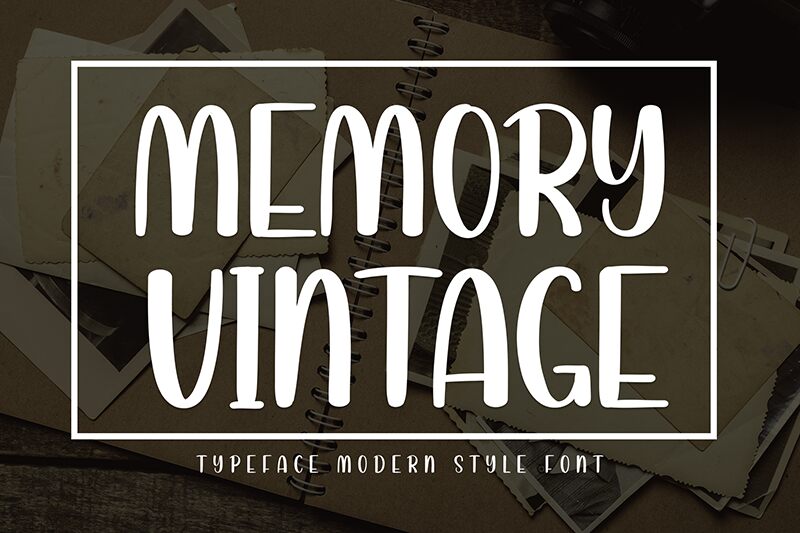
Memory Vintage
Are you looking for a font that oozes sophistication and charm? Do you need a brush script typeface to pair with a logo that will make the brand synonymous with elegance and luxury? Look no further than Memory Vintage, an exquisite brush font that will make heads turn.
This font is perfect for wedding invitations, magazine covers, posters, branding designs, book cover titles, and social media posts. Share your stunning designs with everyone using this free brush font for commercial projects, or use it for personal ones, whatever your choice, let your audience know which font you used.